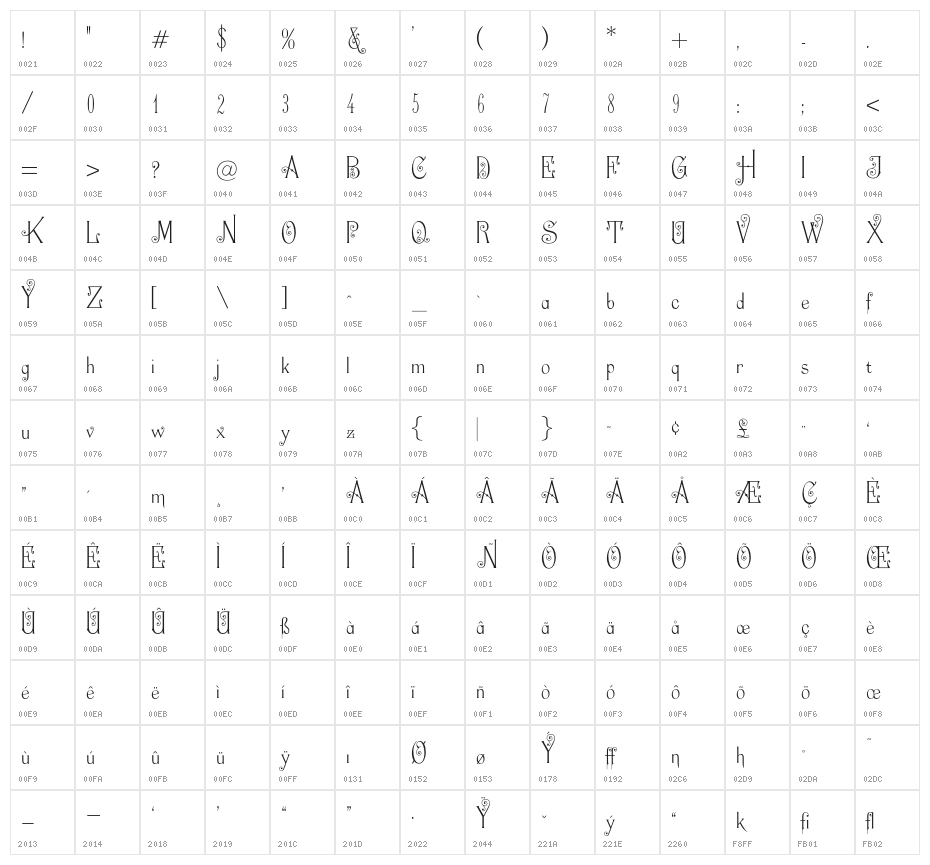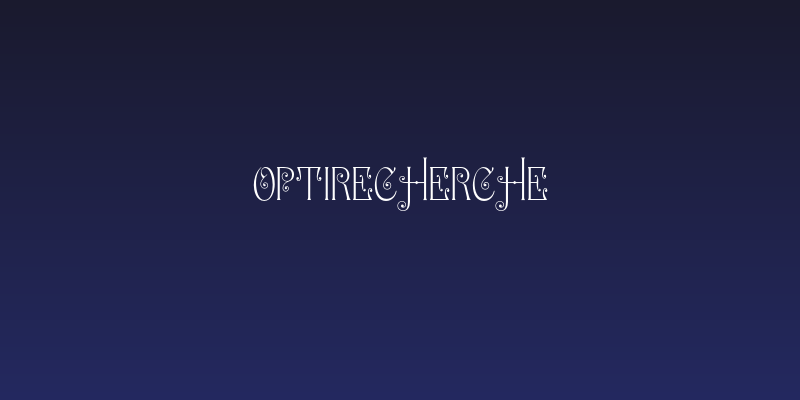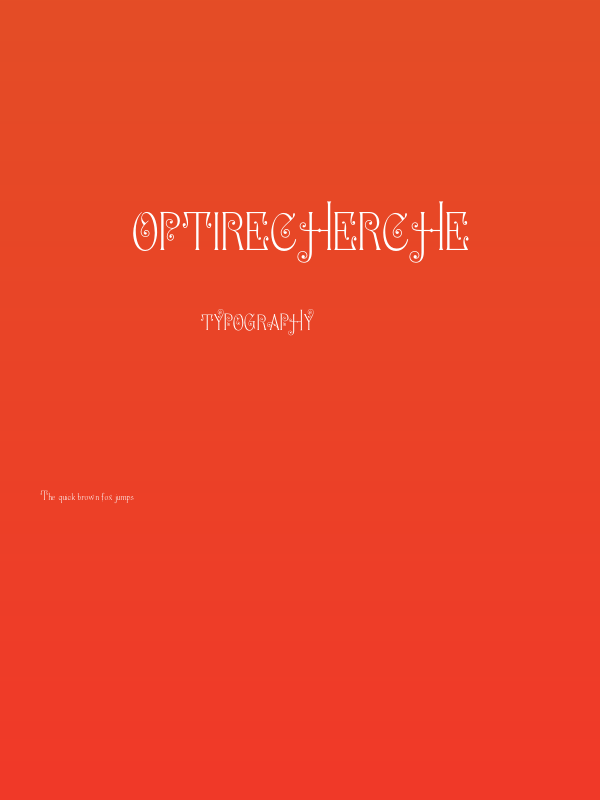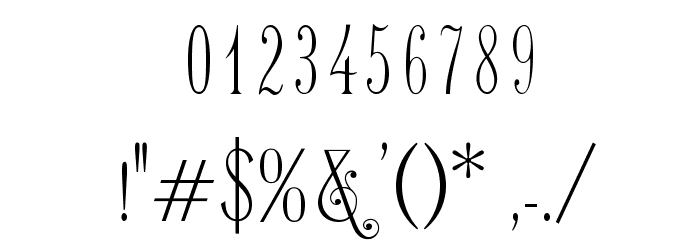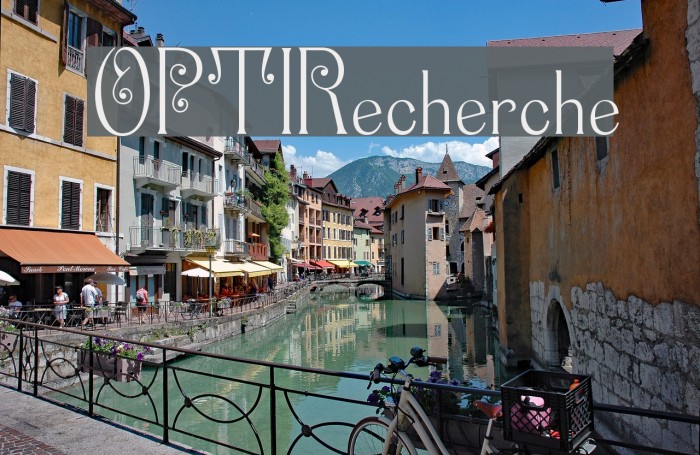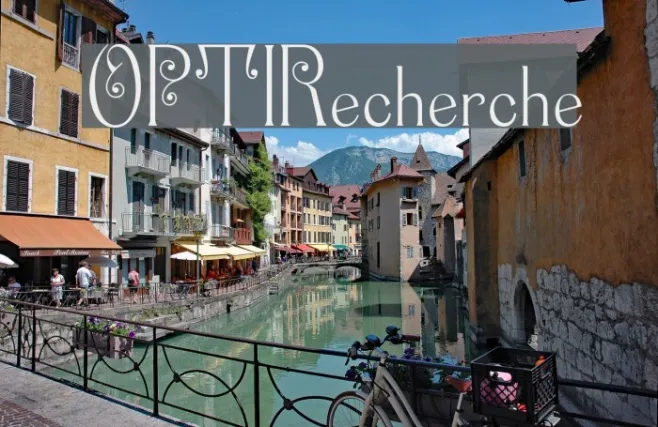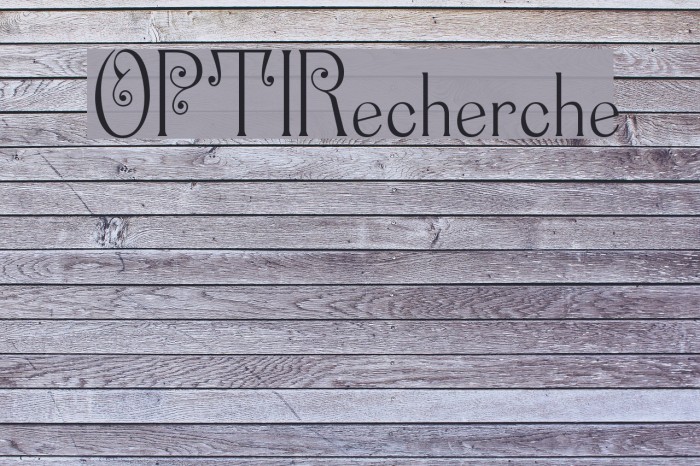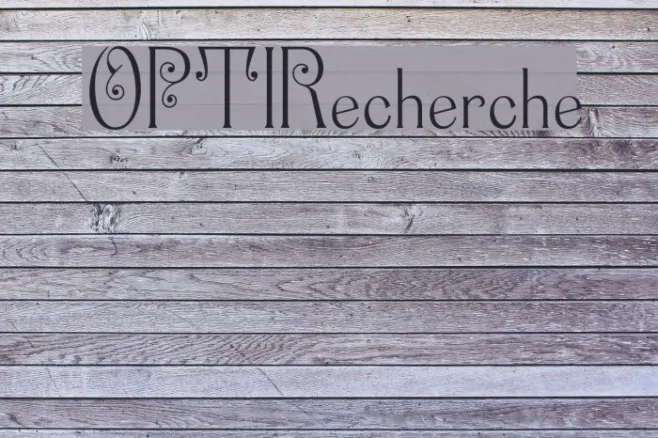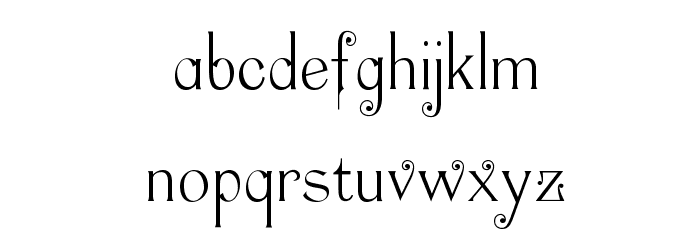
OPTIRecherche Font
OPTIRecherche Description
This font features an ornate and decorative style, characterized by its intricate swirls and flourishes that extend from the ends of the letters. The uppercase letters are particularly elaborate, with each character showcasing unique embellishments that add a whimsical and artistic touch. The lowercase letters are more subdued but still maintain a sense of elegance with subtle curves. The numerals are consistent with the overall style, offering a cohesive look. Special characters are designed with the same attention to detail, making this font suitable for creative and artistic projects.
| Use Case | Headlines, Artistic projects, Invitations |
| Proposed Projects | Ideal for invitations, greeting cards, artistic posters, and branding that requires a whimsical and elegant touch. |